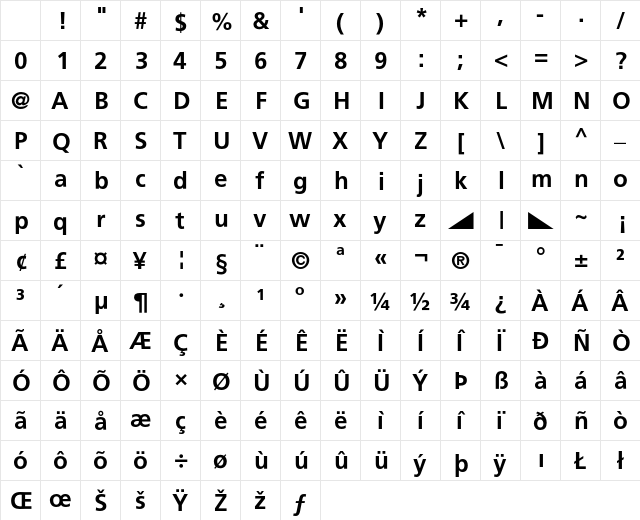
Complete SALFrutiger Bold glyph index. Displaying only characters natively supported by SALFrutiger Bold font.
SALFrutiger is a composed and adaptable typeface that performs quietly and consistently across a wide range of design contexts. Its bold stroke weight gives it real presence on the page.